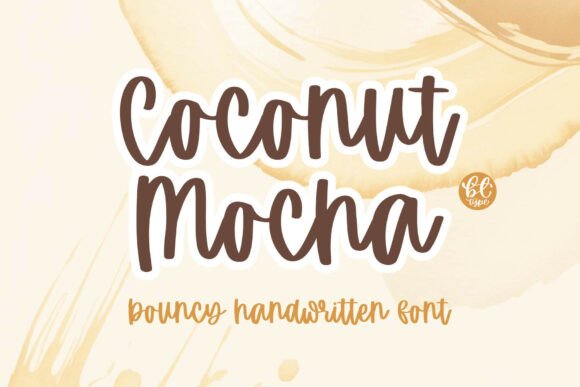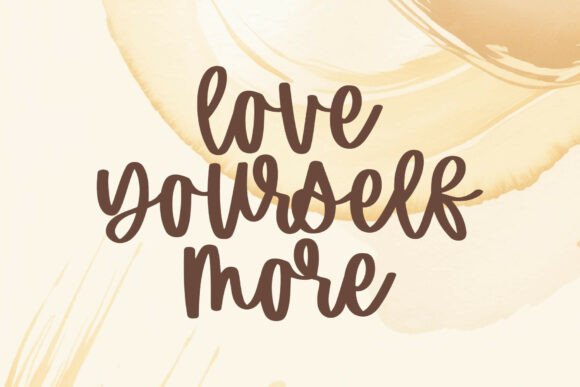
Coconut Mocha Font
☕ COCONUT MOCHA – a smooth, coffee-inspired script with soft, bouncy letters and friendly curves.
Warm, inviting, and deliciously smooth, Coconut Mocha is the bouncy handwritten font that adds a touch of creamy sweetness to every design!
This delightful Coconut Mocha font is a modern script typeface defined by its thick, rounded strokes and its signature bouncy baseline, lending a casual, friendly, and wonderfully handmade feel. The generous letter spacing and fluid connections give the bouncy handwritten font an effortless, marker-pen quality, making it incredibly readable for a script. It’s the perfect Coconut Mocha typeface for coffee shop branding, cozy merchandise, bakery logos, social media quotes, personalized invitations, and children’s book titles, offering a comforting and approachable aesthetic.